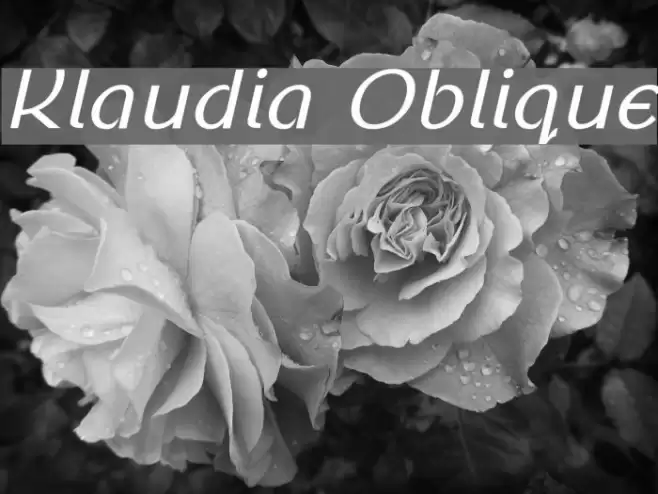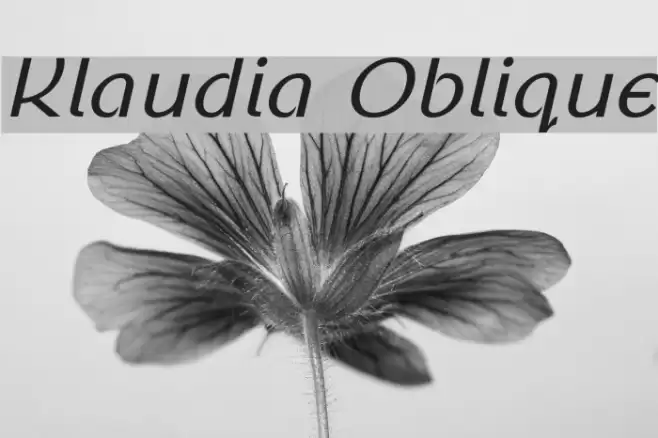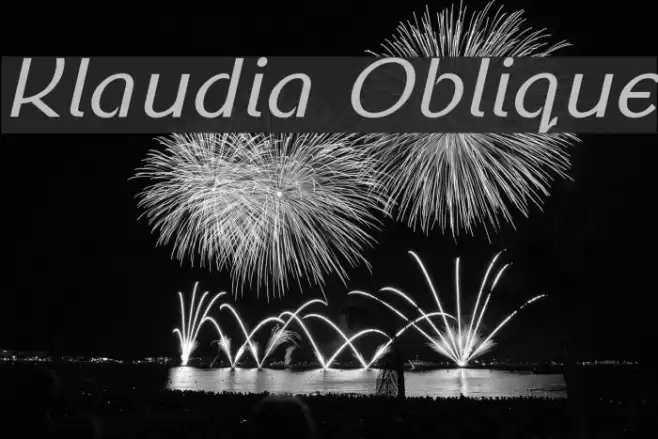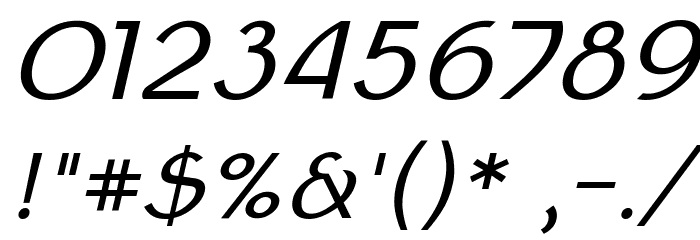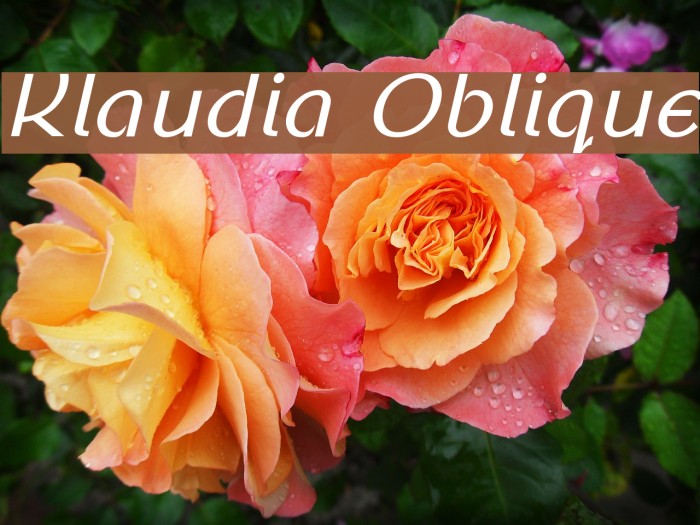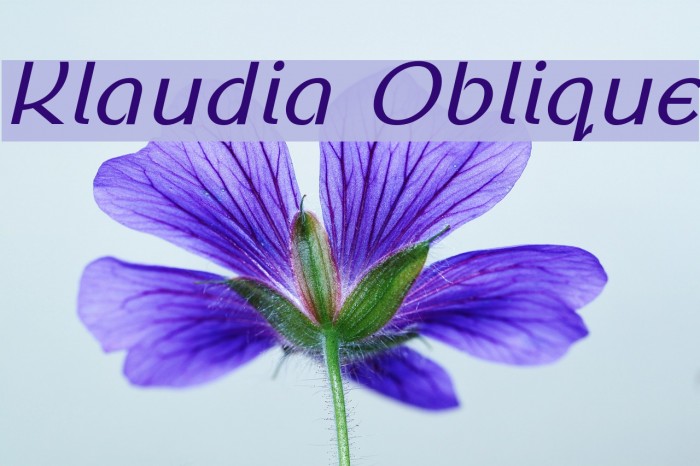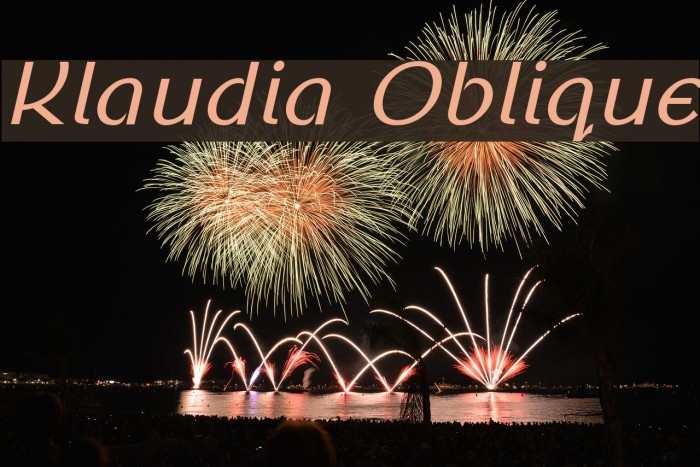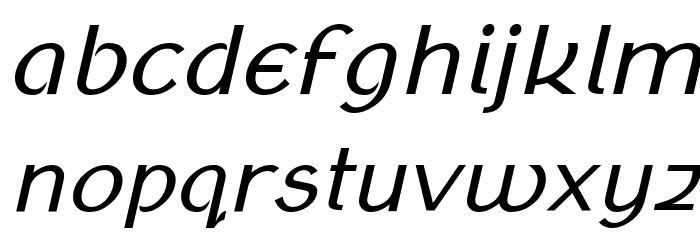
Klaudia Oblique Font
Klaudia Oblique Description
This font features an elegant and flowing oblique style, characterized by its smooth curves and slightly slanted letters. The uppercase letters exhibit a graceful form with consistent stroke widths, while the lowercase letters maintain a harmonious balance, enhancing readability. The numerals are well-proportioned, complementing the overall aesthetic. Special characters are designed with the same attention to detail, ensuring a cohesive look across all glyphs. This font's oblique nature adds a dynamic and sophisticated touch, making it suitable for various design applications.
An elegant oblique font with smooth curves and consistent stroke widths from Uncategorized fonts.